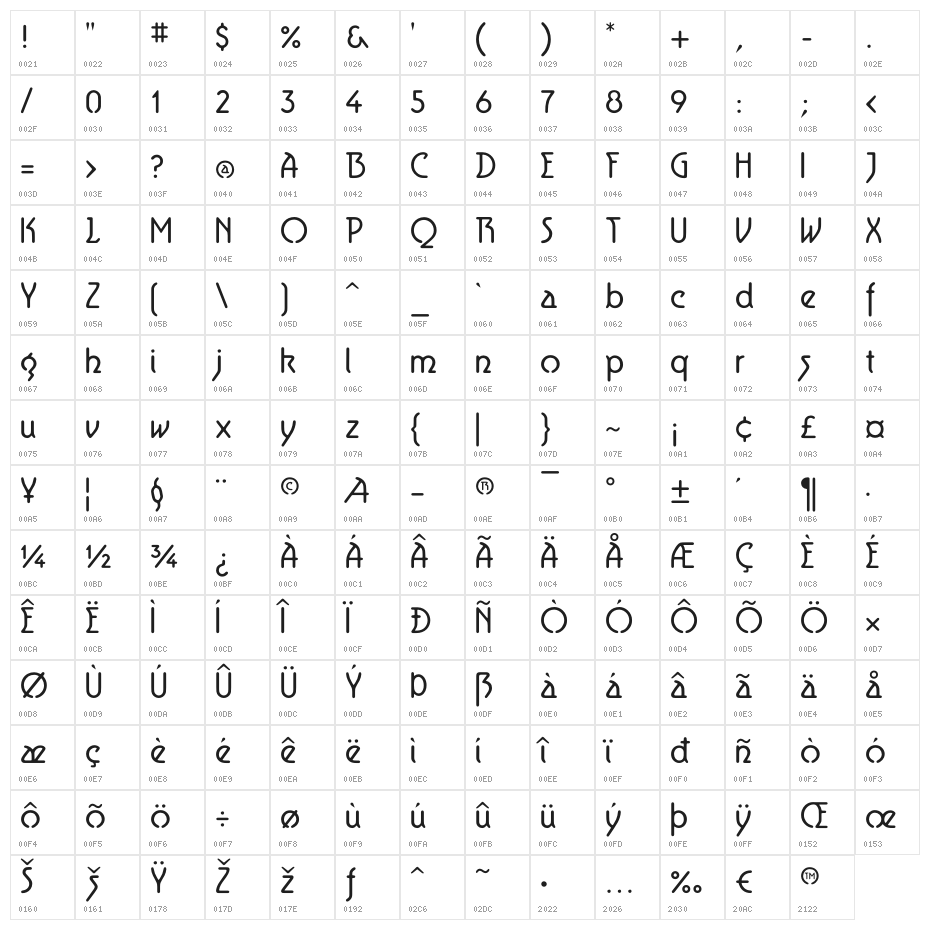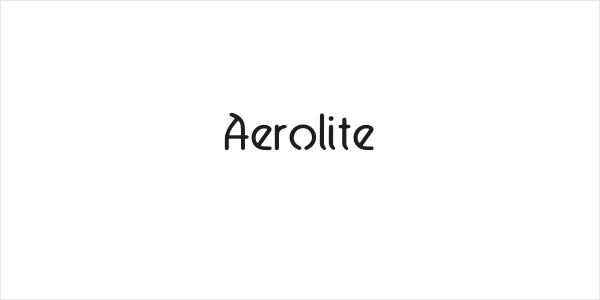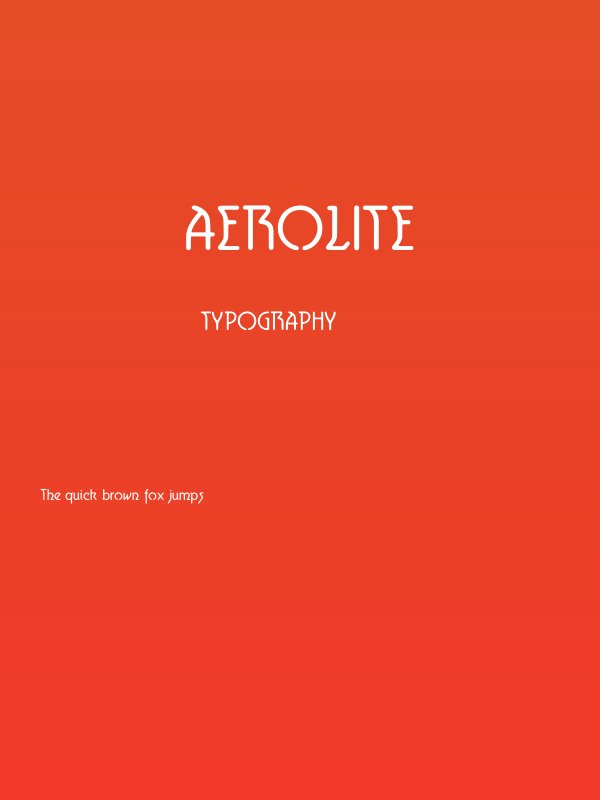
Aerolite Font
Aerolite Description
This font features a unique and modern design with a playful yet sophisticated aesthetic. The characters are rounded with a consistent stroke width, giving it a clean and approachable look. The uppercase letters have a distinct geometric influence, while the lowercase letters maintain a more fluid and organic form. The numerals and special characters are designed to complement the overall style, making it versatile for various applications. The font's balance between modernity and playfulness makes it suitable for creative projects.